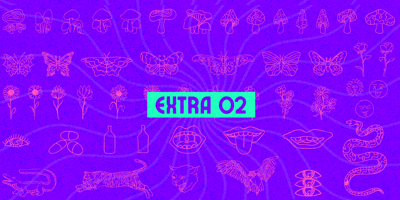
Allium Font
Allium Font is perfect for botanical garden branding, organic farm marketing, seed company packaging, herbal medicine labels, natural skincare products, garden center signage, floral design studios, and sustainable agriculture campaigns. This organic typeface excels in applications where natural growth and botanical beauty are essential for creating authentic and nurturing brand experiences that celebrate the wonder of plant life.
What makes Allium Font truly exciting is its delicate embodiment of botanical elegance and natural growth patterns that captures the graceful beauty of flowering bulbs and garden landscapes. The font features organic letterforms with gentle curves and petal-inspired details that mirror the sophisticated simplicity of allium blooms and the natural rhythm of seasonal growth cycles. Its botanical personality and cultivated character create an immediate sense of natural harmony and garden tranquility that resonates with audiences seeking authentic connections to nature and sustainable living practices. The typeface's flowering appeal and horticultural charm make it perfect for brands wanting to convey growth, natural beauty, and connection to the earth's botanical treasures.
The Allium Font family includes regular and flowering versions, complemented by botanical alternates and garden-inspired ornamental elements. The font offers comprehensive character sets with plant symbols, organic ligatures, and horticultural styling details that enhance its natural aesthetic. Additional graphic elements including flower petals, seed pods, garden tools, and botanical motifs provide designers with complete branding tools rooted in gardening culture and botanical science traditions.
For designers seeking an authentic botanical-inspired typeface, Allium Font Free Download represents an exceptional choice that brings natural elegance to contemporary brand communications. Whether you're developing identities for gardening companies, designing materials for botanical institutions, or creating marketing campaigns for organic product brands, this font delivers the natural authenticity that appeals to gardening enthusiasts and environmentally conscious audiences. Its botanical character and organic appeal make it particularly effective for brands in agriculture, horticulture, and natural products industries. The font's ability to evoke feelings of growth, natural beauty, and environmental harmony makes it an invaluable asset for creating brand communications that celebrate botanical science, sustainable gardening, and the life-giving power of plants in supporting human health and environmental wellness.